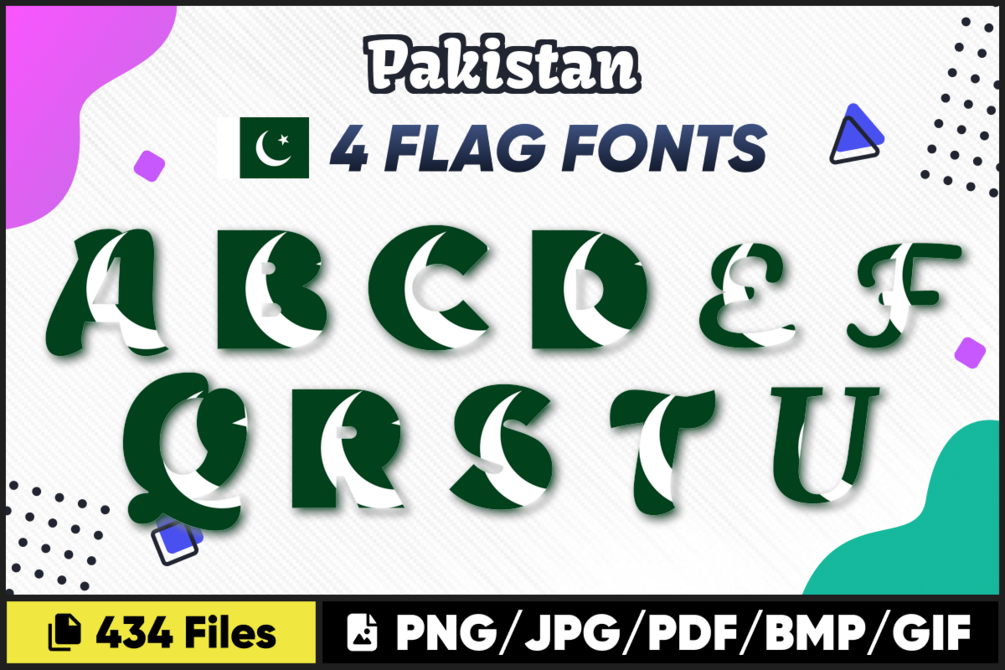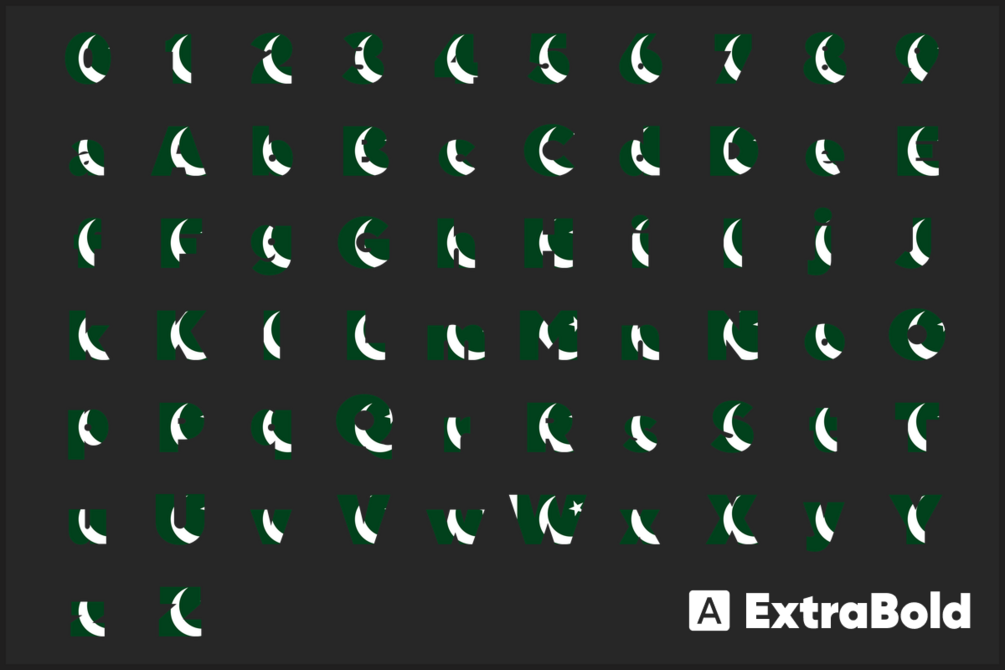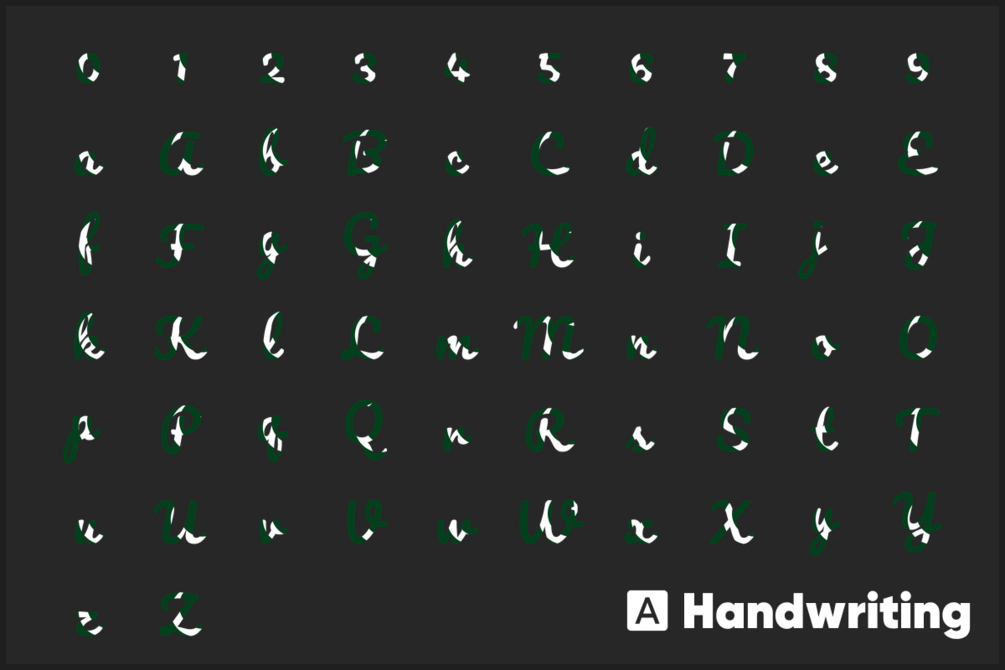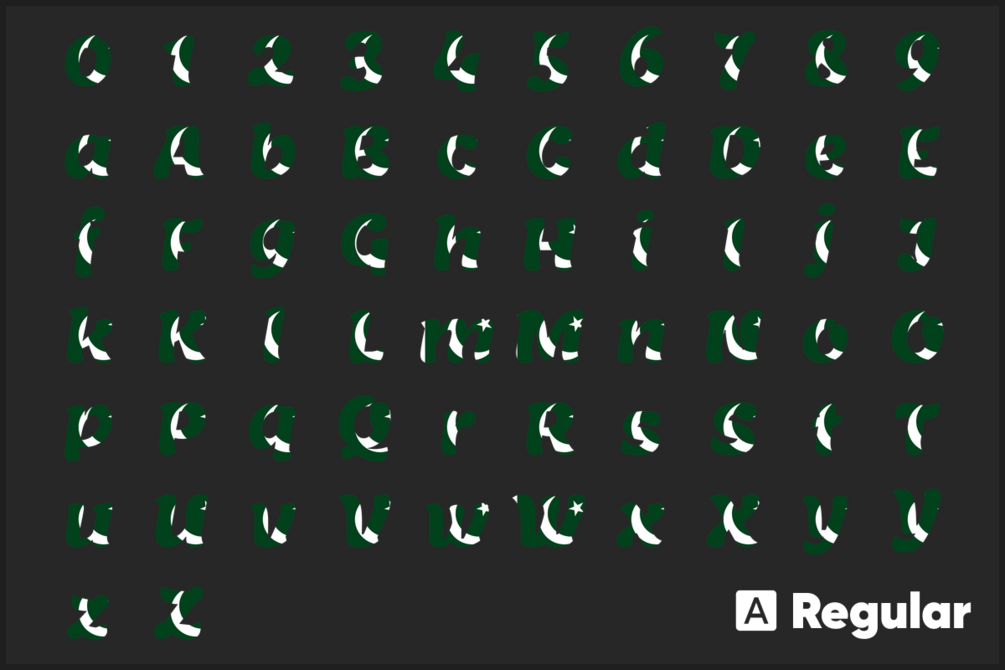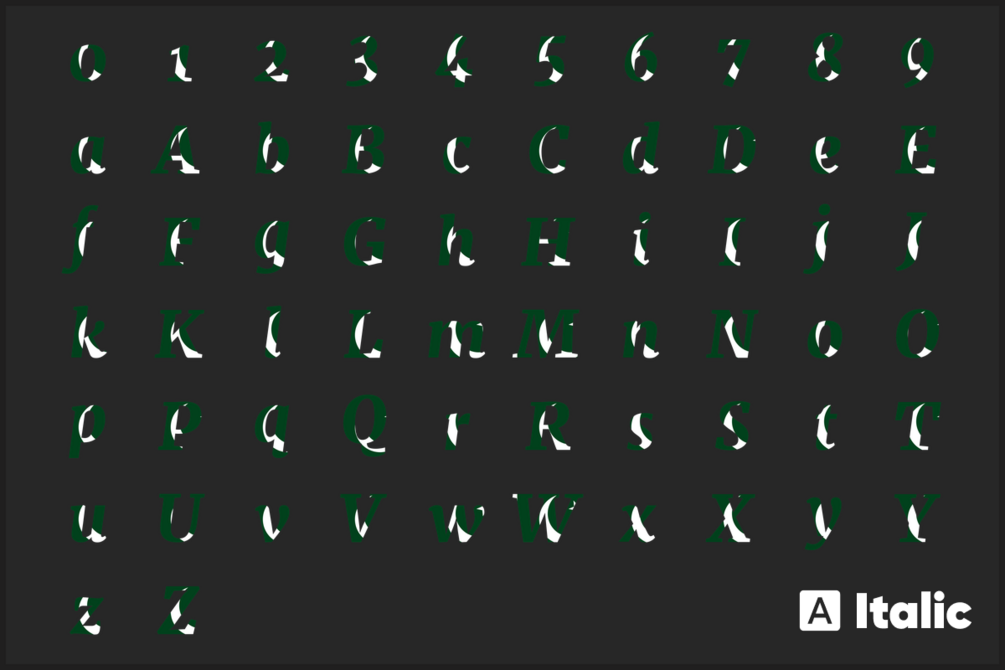
Pakistan Font free download
Introducing Pakistan Font free download Flag Font, Letters! These beautiful country font images are ideal for all your crafting needs. Use Pakistan Font free download flag PNG images for creating t-shirt designs, scrapbooking, photo albums, cards, mugs, prints, and more.